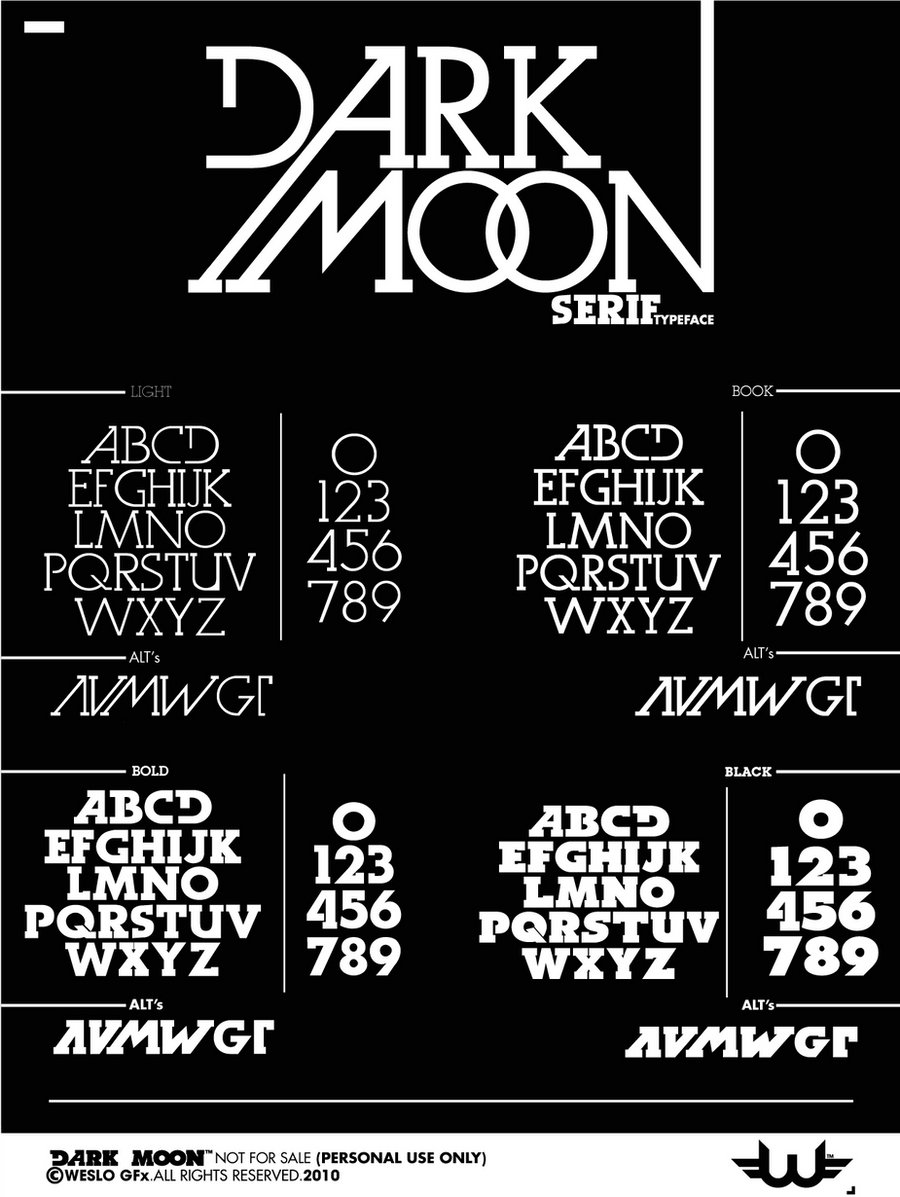
DARK MOON Serif Type Face
I specially like the light. Together with the other ones, a great font for a poster.
Do you have the full set of european glyph or only what is shown there ?
This is the same of here
no this is the serif version the other are sans serif
aww man, this is AMAZING! I love the font!